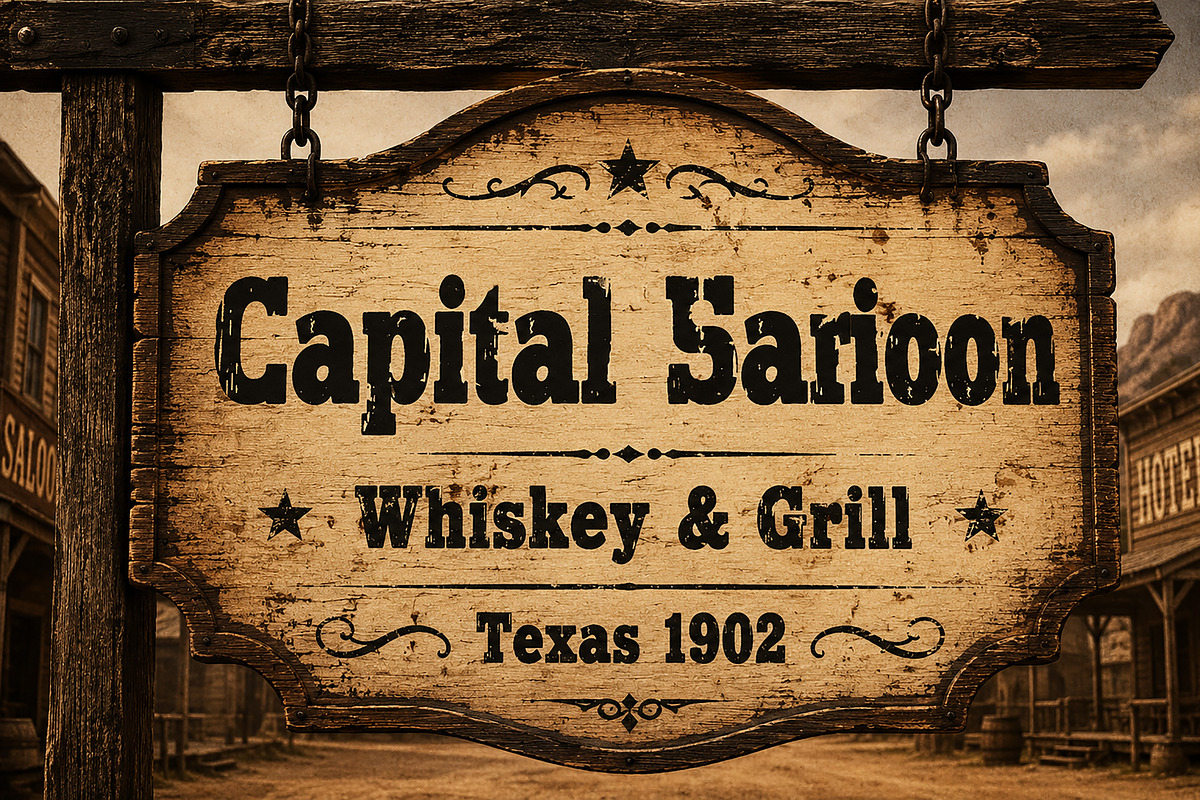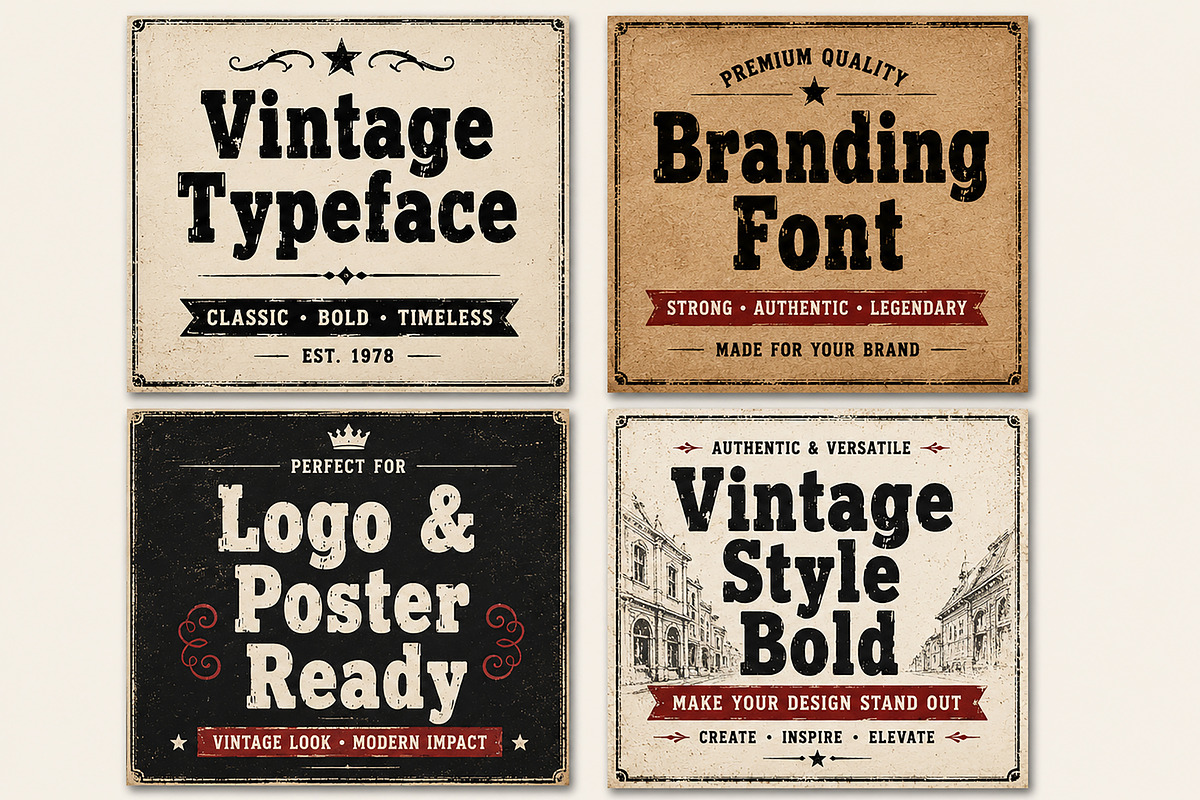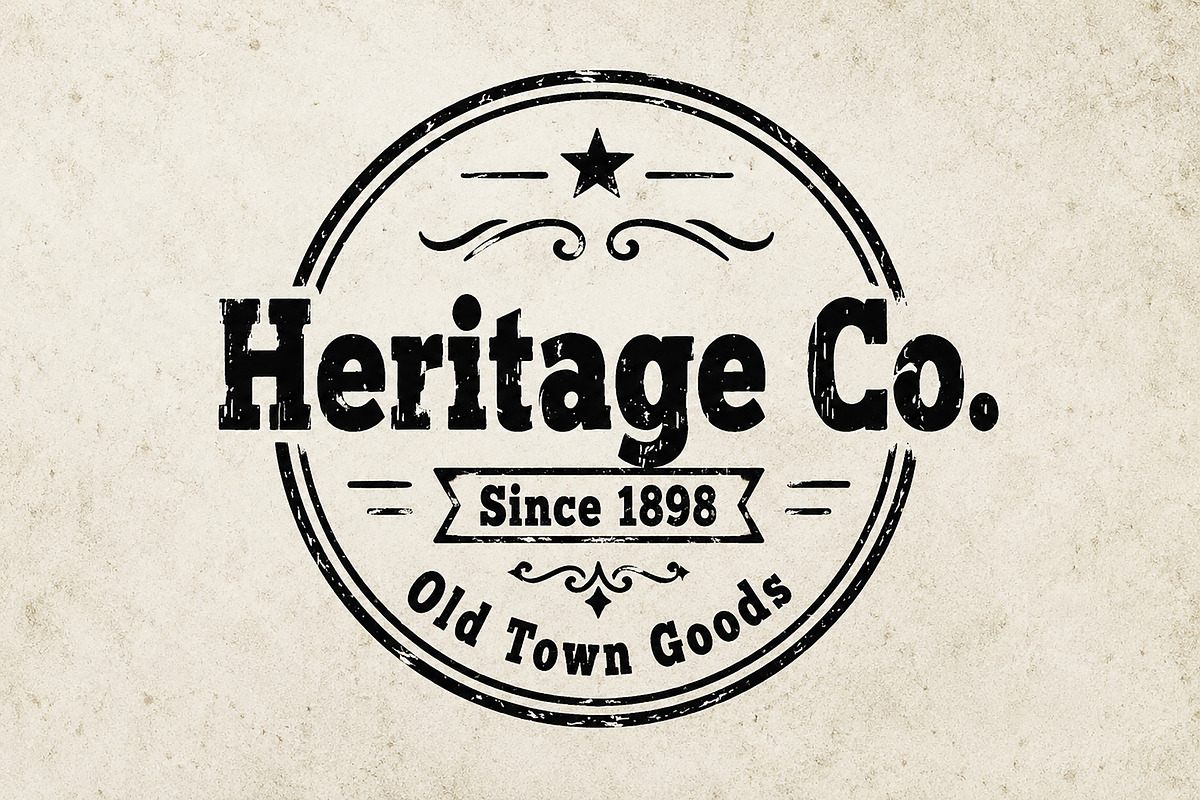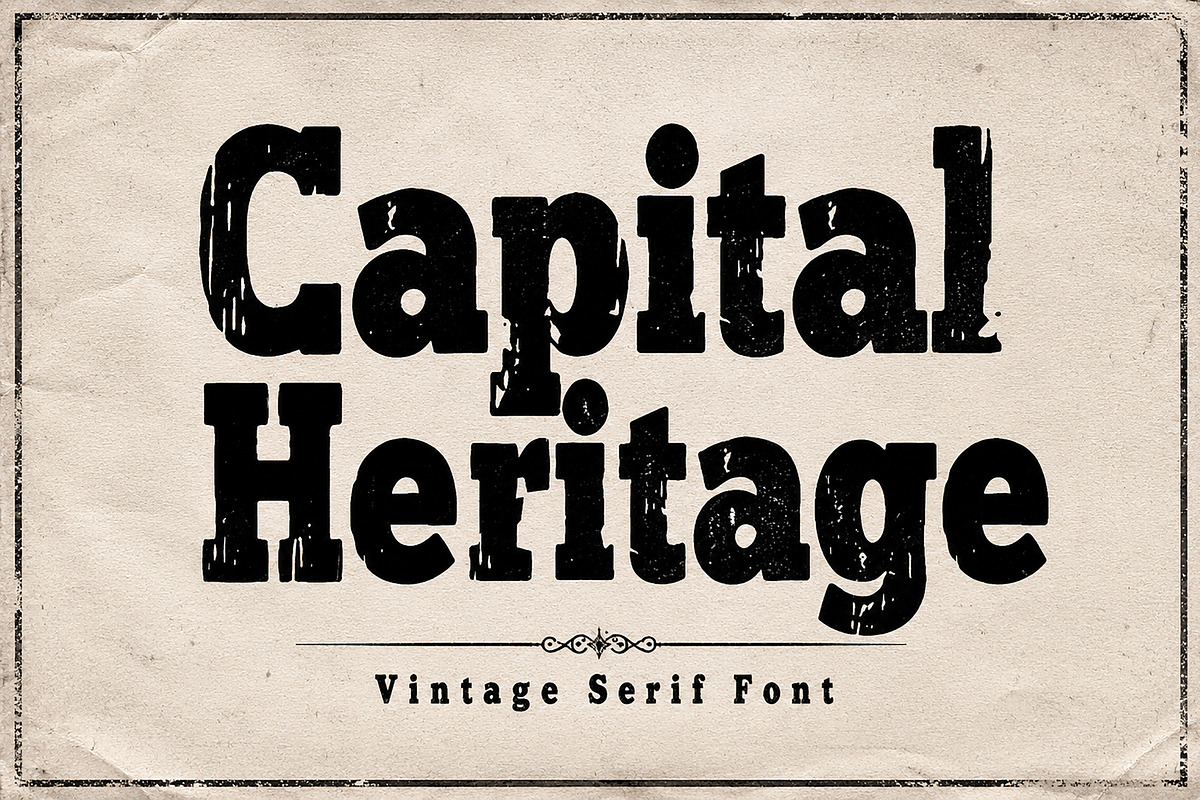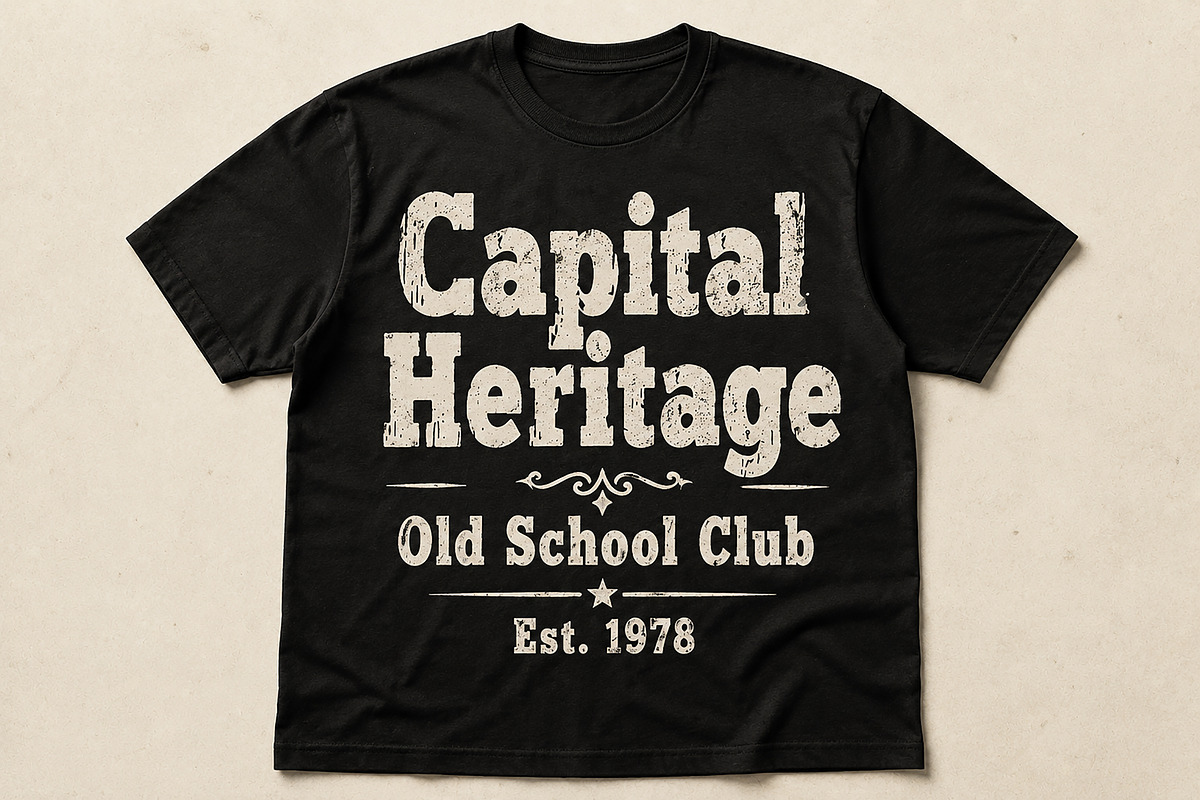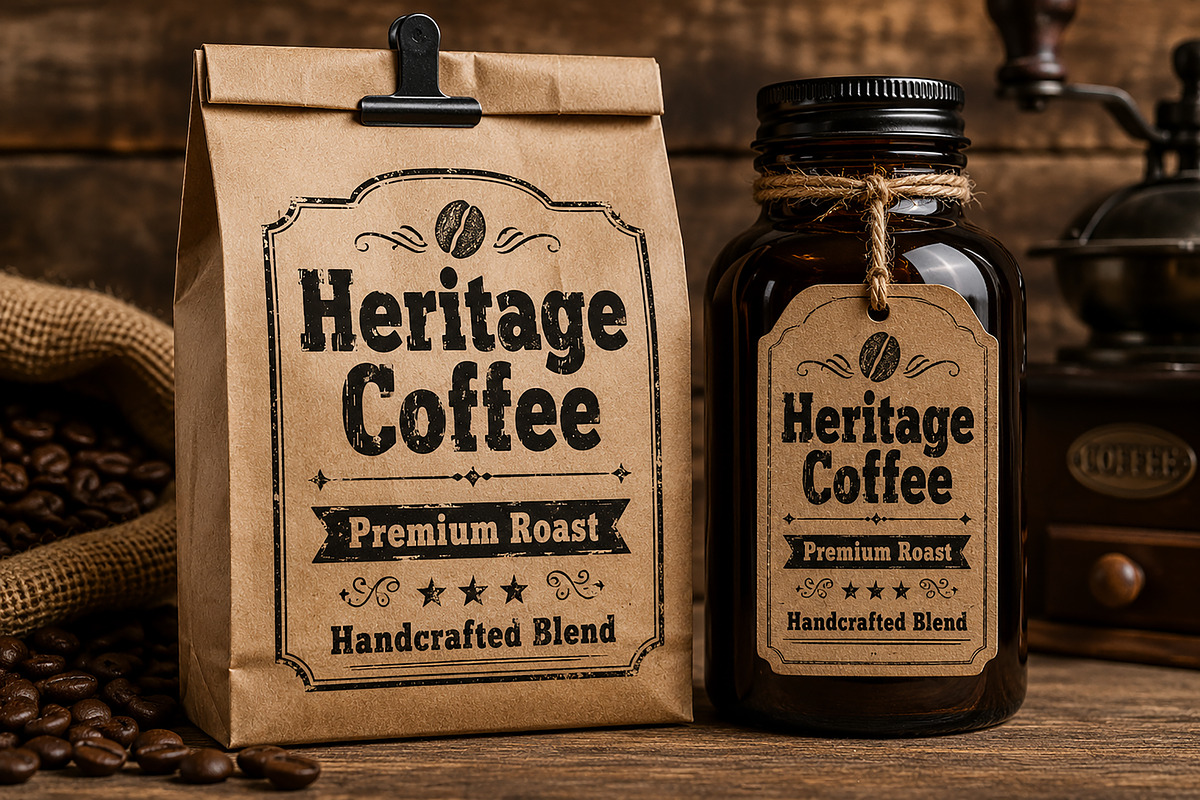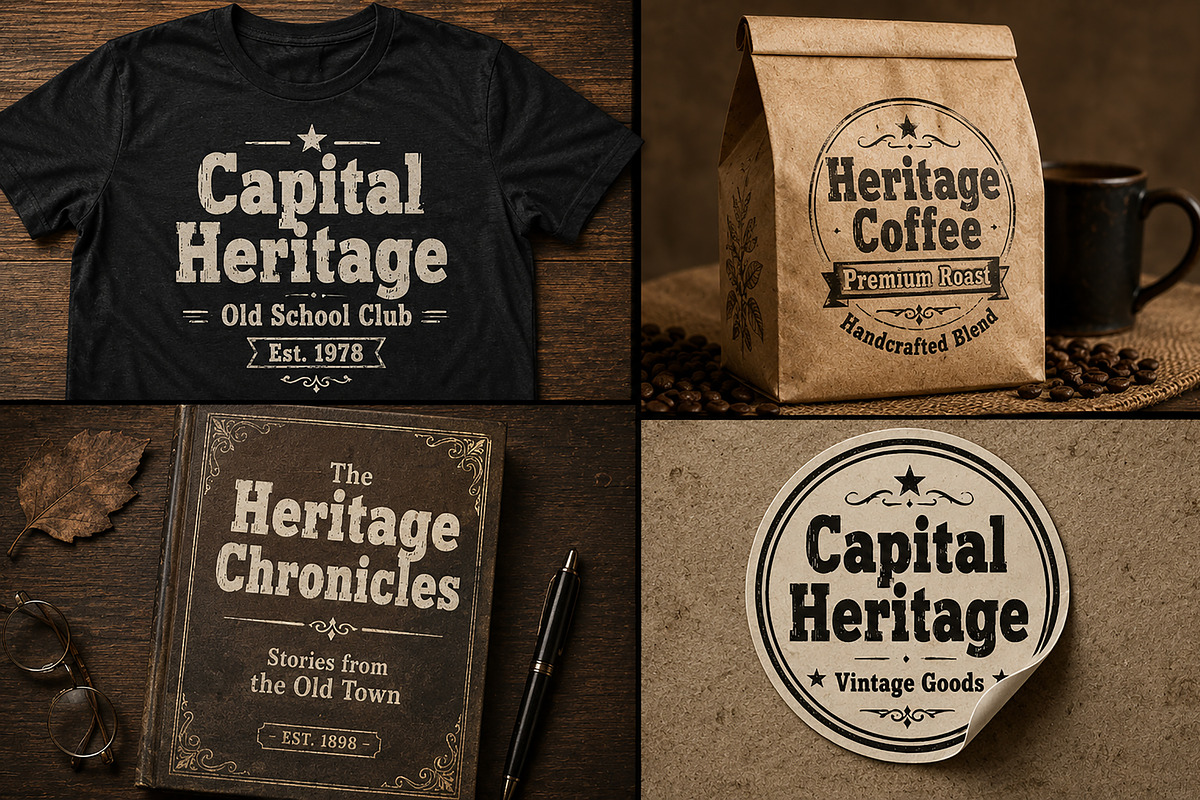
Capital Heritage
Capital Heritage – Vintage Western Serif Font
Capital Heritage is a bold vintage serif font inspired by classic western typography and rugged old-school signage. Featuring distressed textures, strong slab-serif letterforms, and a handcrafted retro personality, this font delivers a timeless heritage aesthetic perfect for impactful display typography.
Its bold and rustic structure creates a confident visual presence, making it ideal for logos, posters, apparel, whiskey labels, packaging, restaurant branding, merchandise, editorial titles, and retro-themed graphics. The worn vintage texture adds authentic character while maintaining strong readability and stylish visual impact.
Capital Heritage blends western tradition with bold modern display design, making it a perfect choice for designers seeking nostalgic typography with a strong handcrafted identity.
Bold Vintage Style
Distressed Texture Design
Slab Serif Letterforms
Western-Inspired Typography